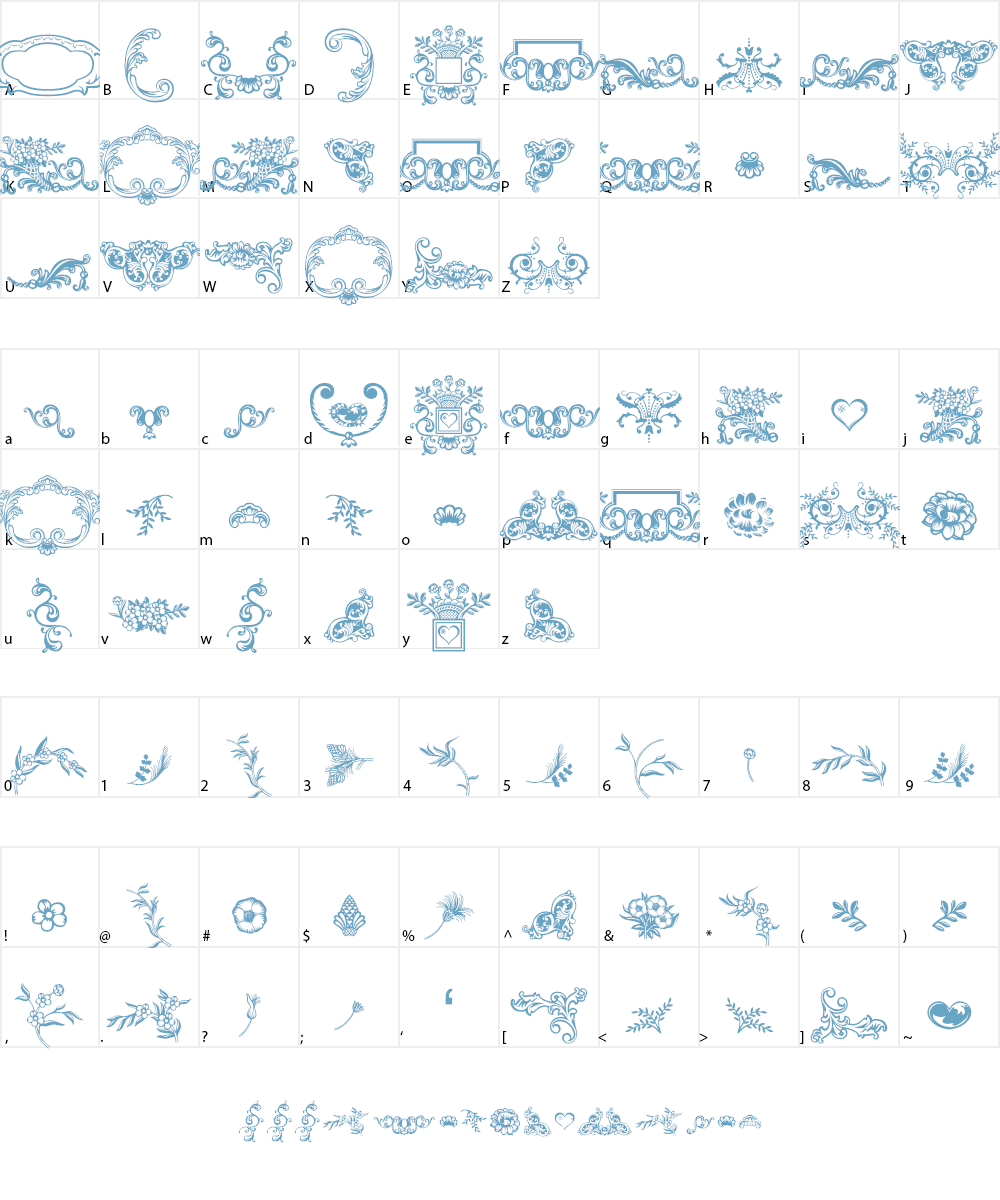
98 new & unique decorative "dingleberries" in total. Inspired by everything I love. Free for personal use. Donate to use commercially. Contact me for more info, nymphont at yahoo dot com. I hope you likes! :D ~Lauren